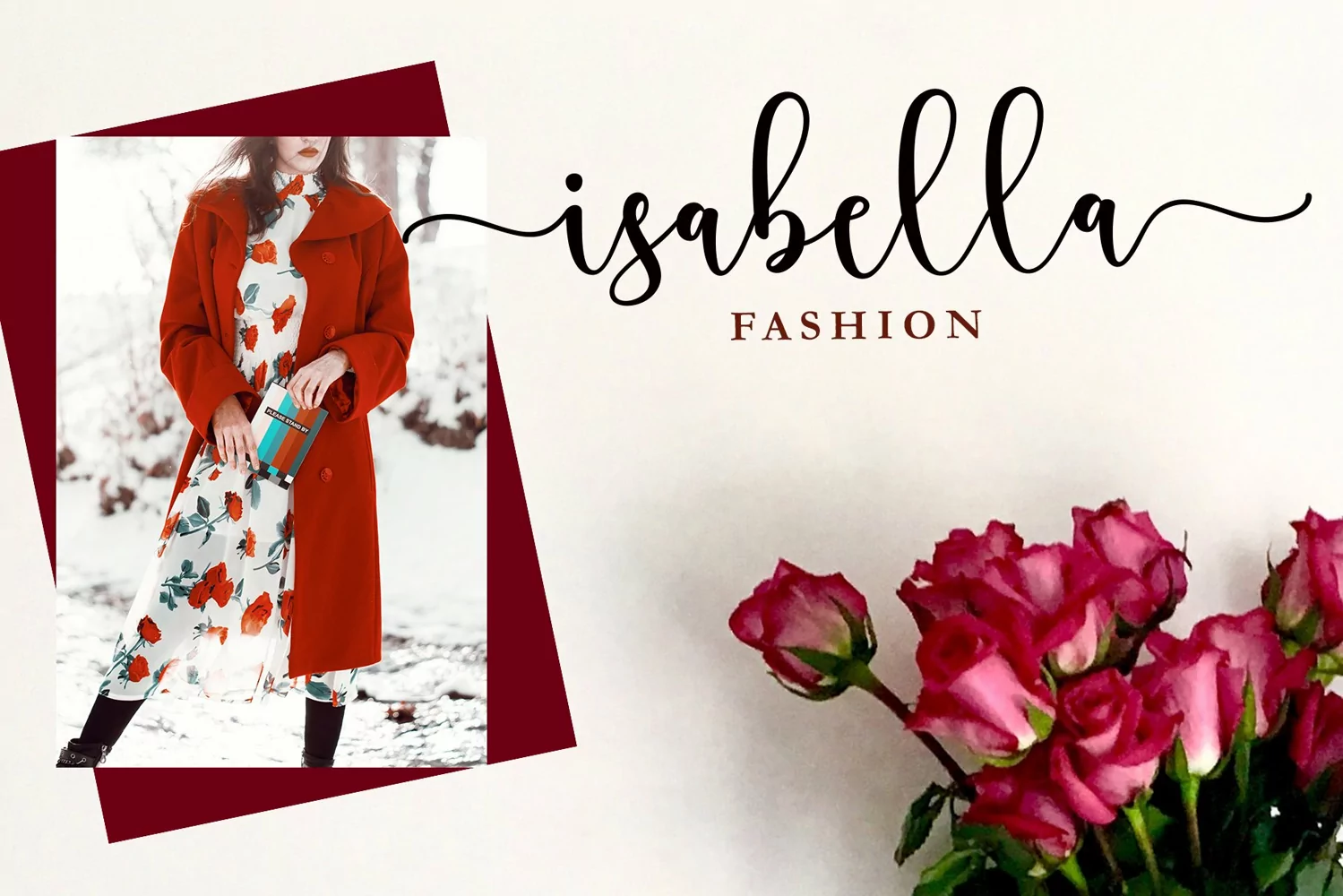
Rostyle Script
Rostyle Script - is a pretty and lovely font, fresh, interesting, cute with little heart at the end of the letter. Great for greeting cards, branding materials, business cards, quotes, posters and more!